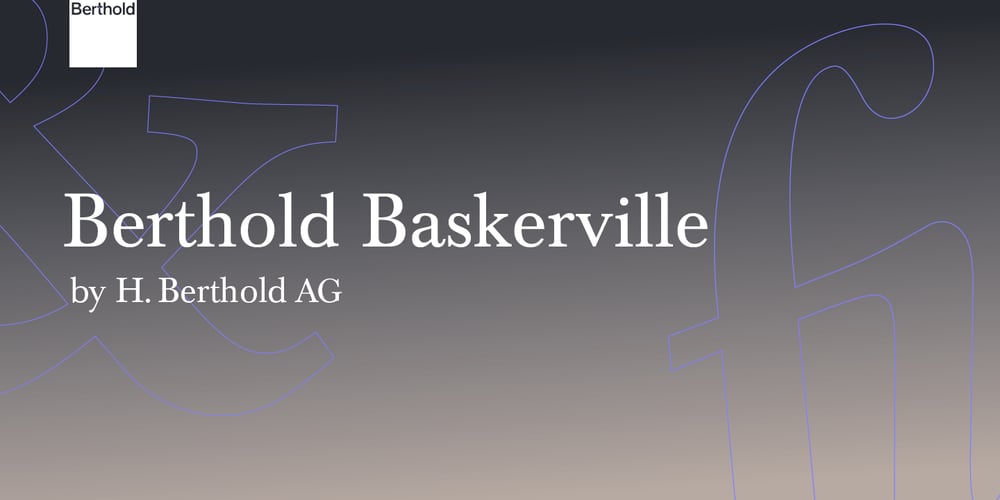
Berthold Baskerville
Berthold Baskerville font
Berthold Baskerville Font Family was designed by Hermann Berthold and published by Berthold. Berthold Baskerville contains 5 styles and family package options. Based on John Baskerville’s types first issued between 1752 and 1757 in Birmingham, England, H. Berthold released its version in 1961. Baskerville types are known for their clarity and legibility. Berthold’s version is a highly readable design, making it a popular choice for books and other longer texts.